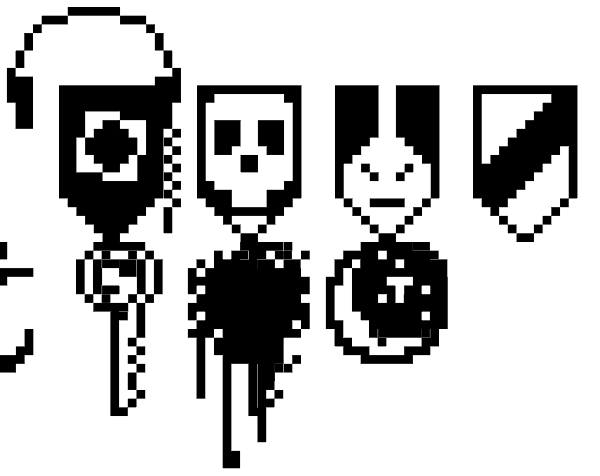
Psychophante
Remember back in the day when medals where for The Beatles and foreign dictators only? No more! Psychophante is a 64 pixel medal-building dingbat. Make fresh pixly medals (like the 'I Really Like Your 'fro medal' and the 'Best Hotel Booker medal...